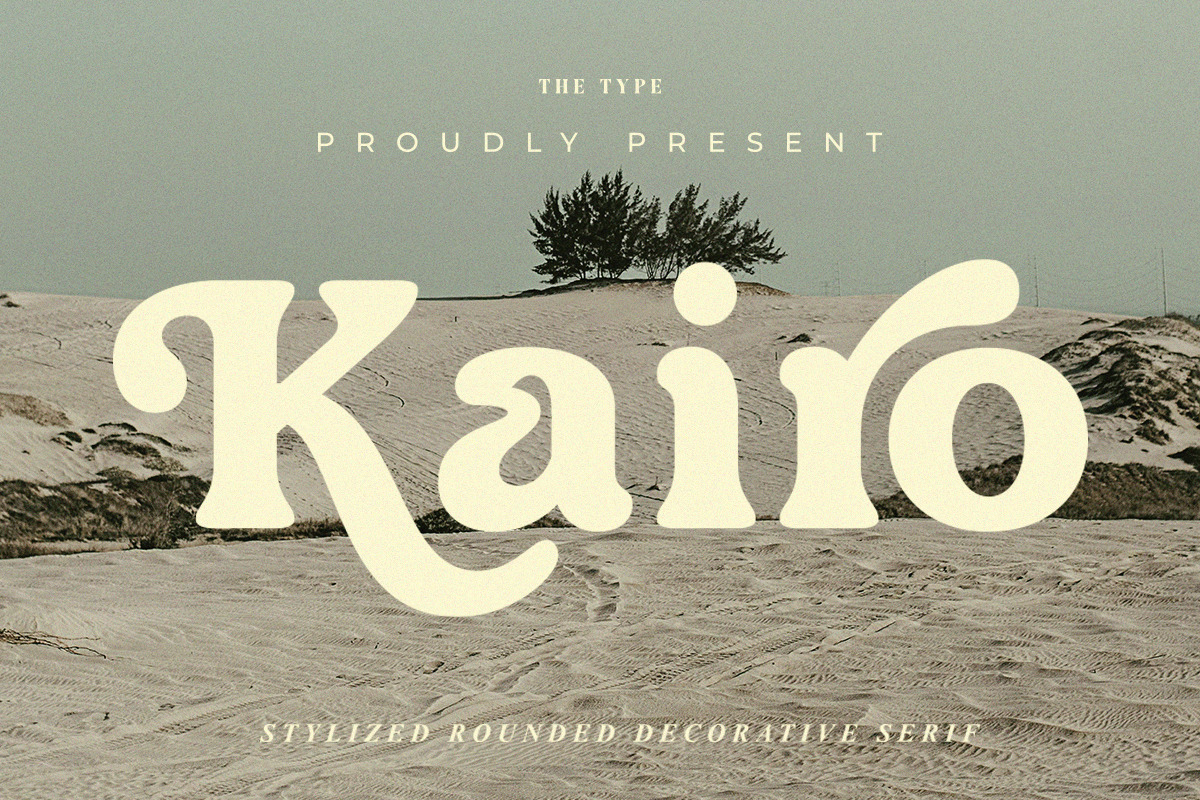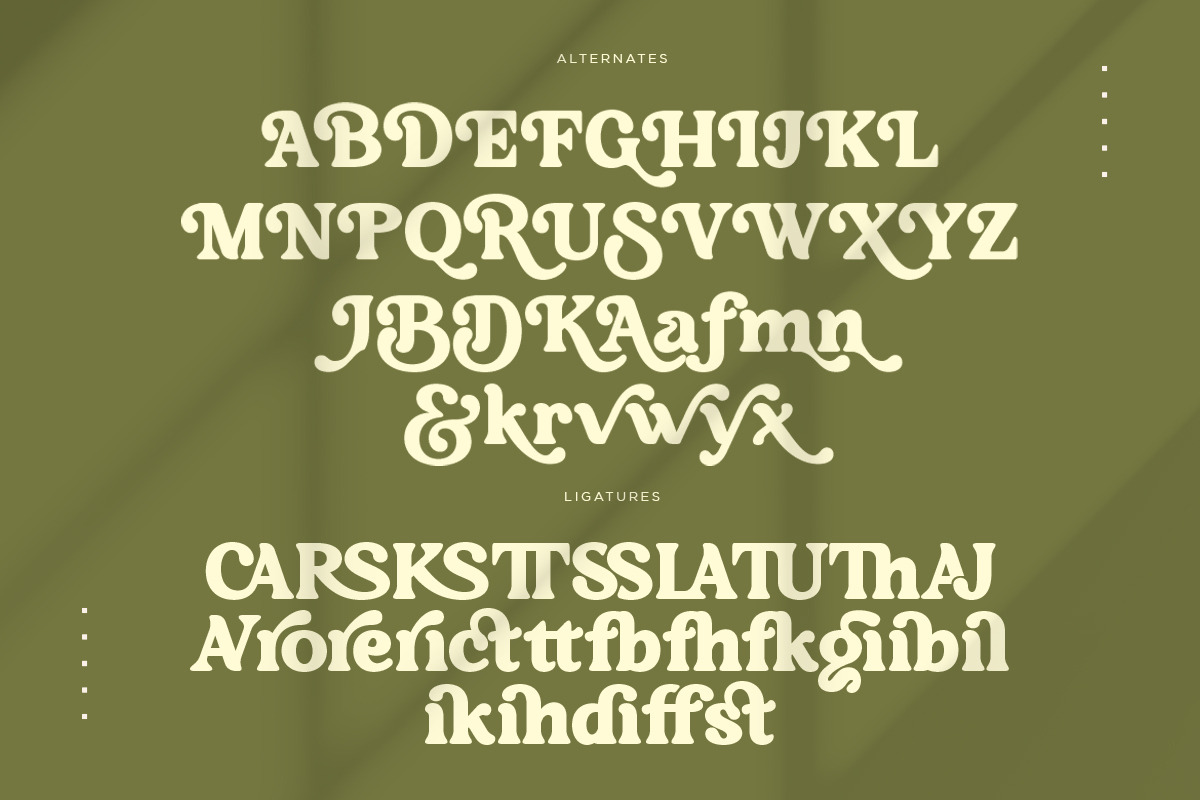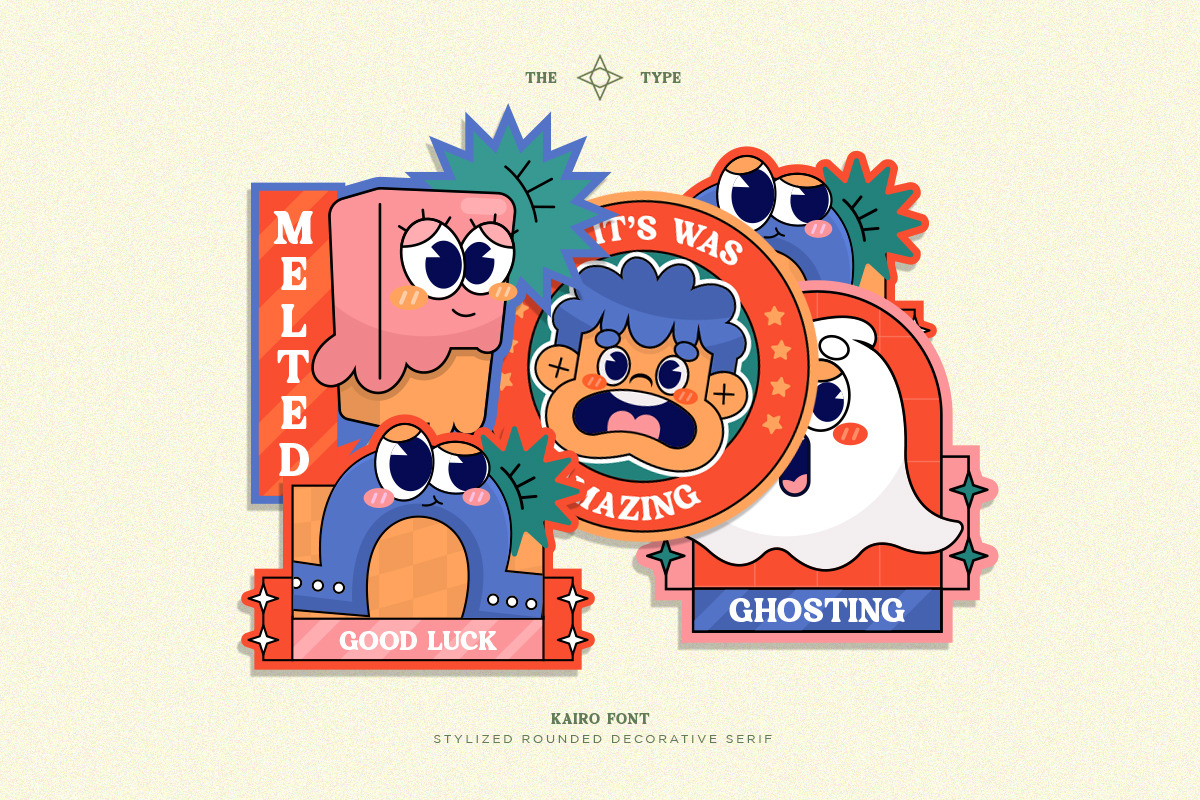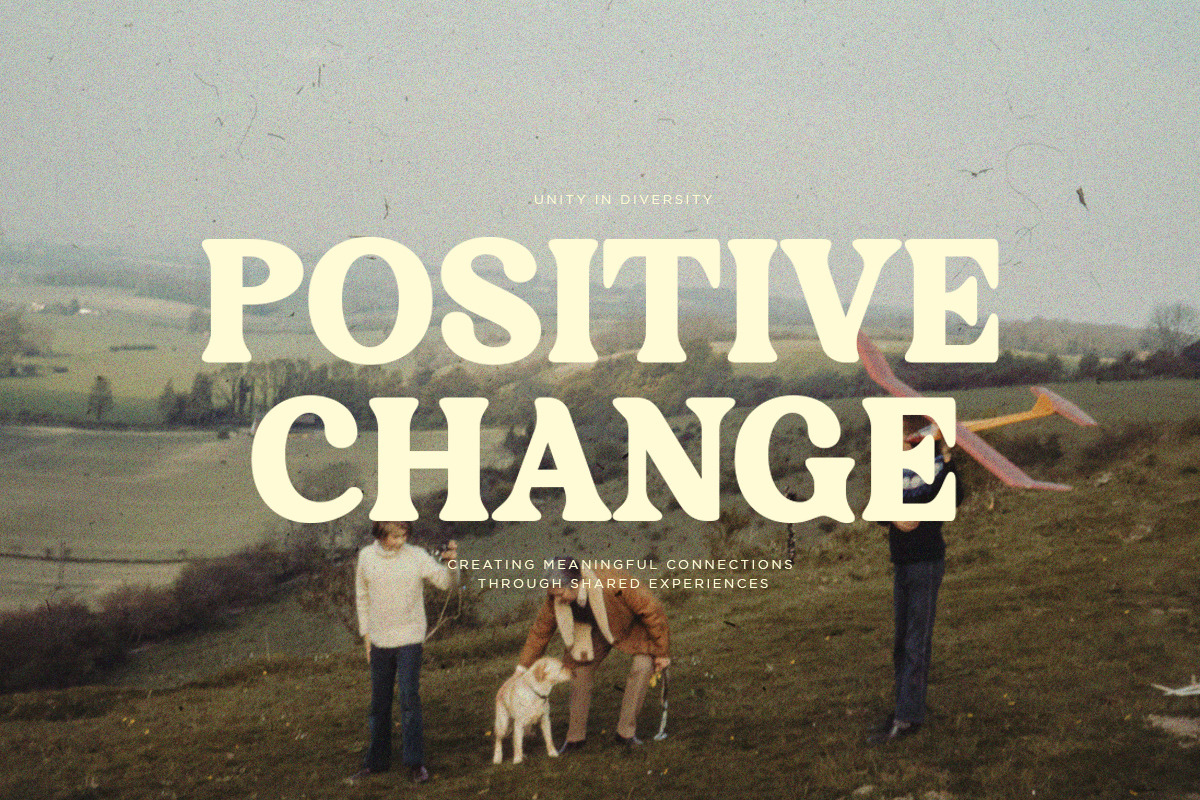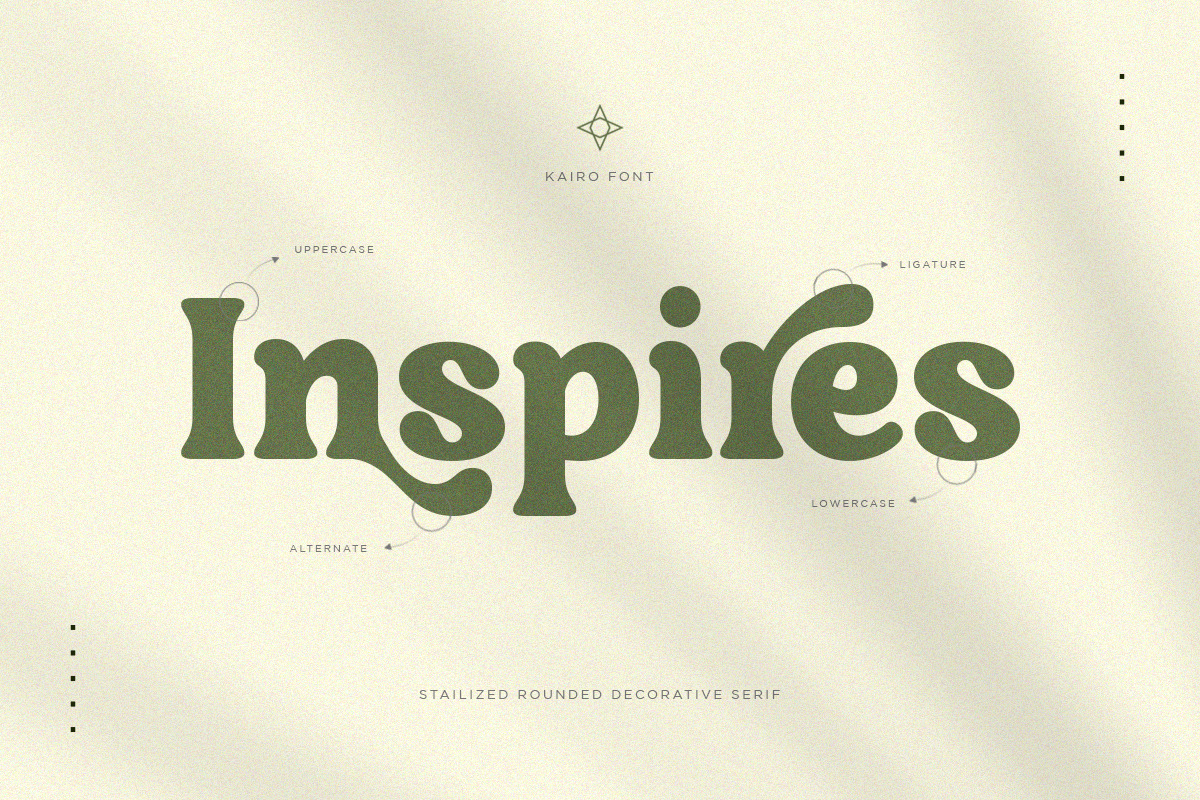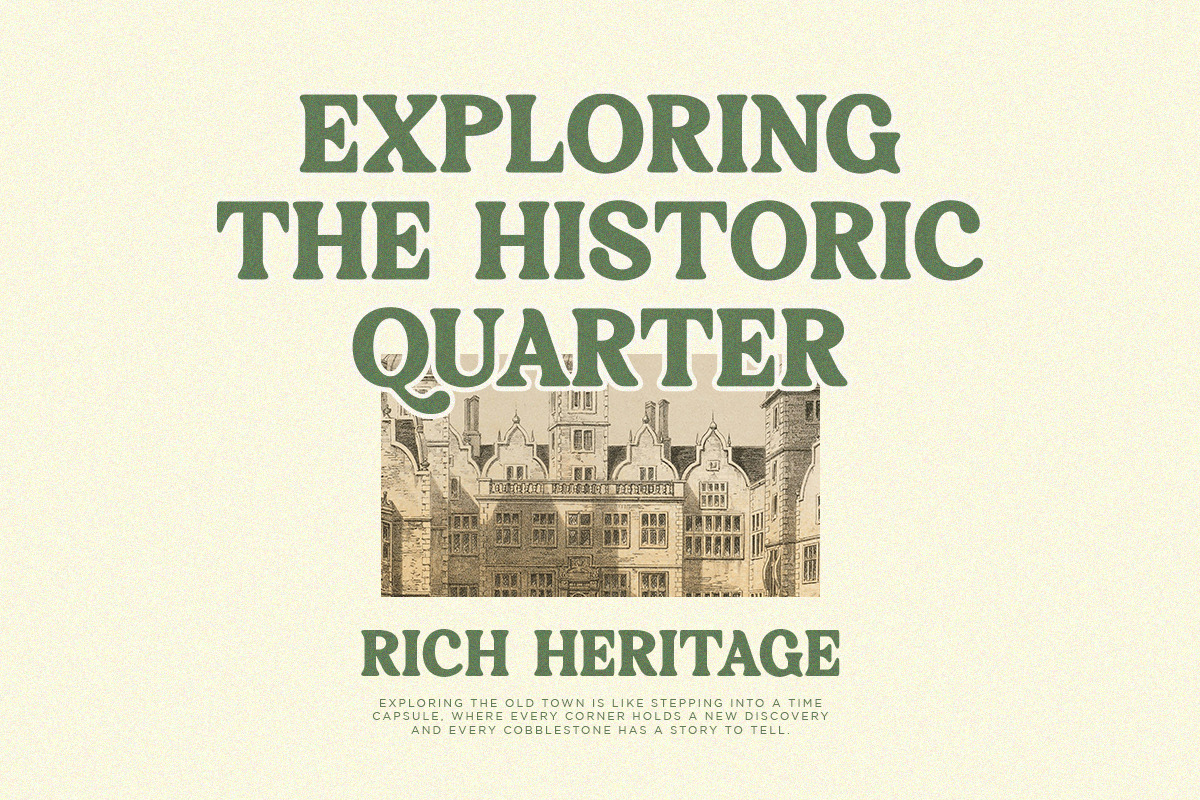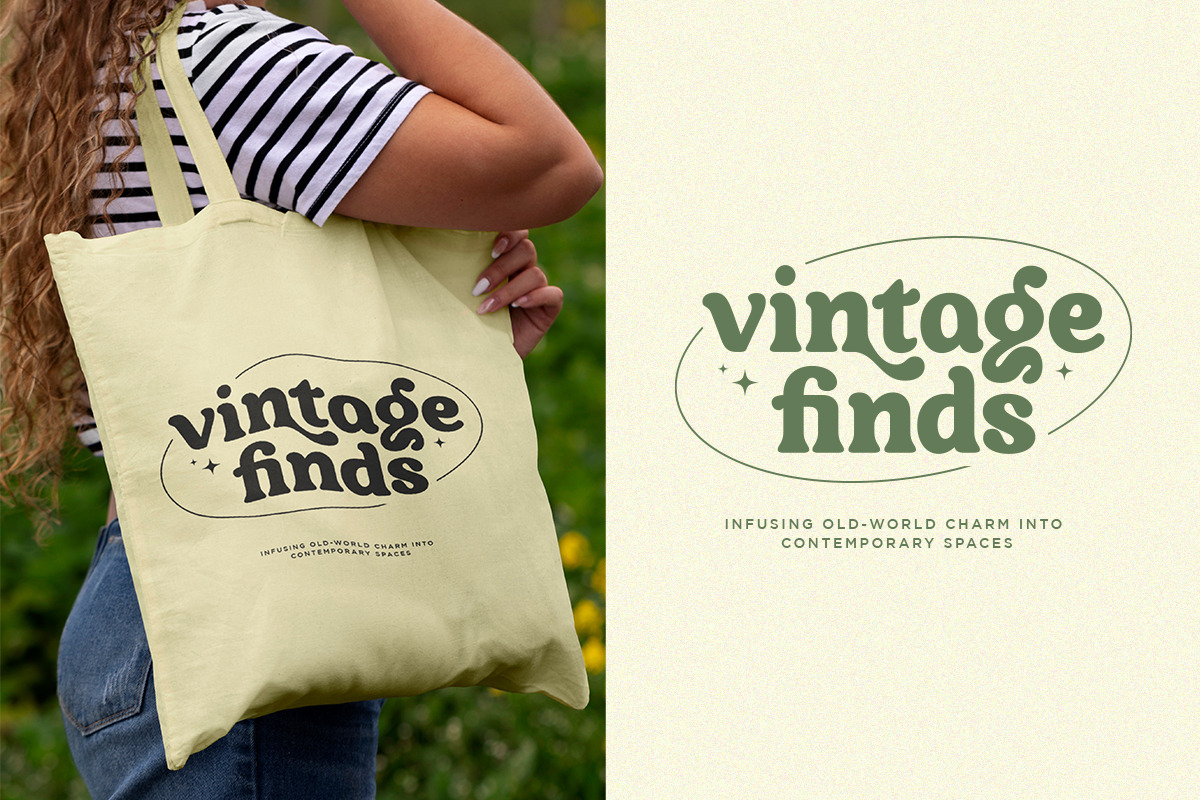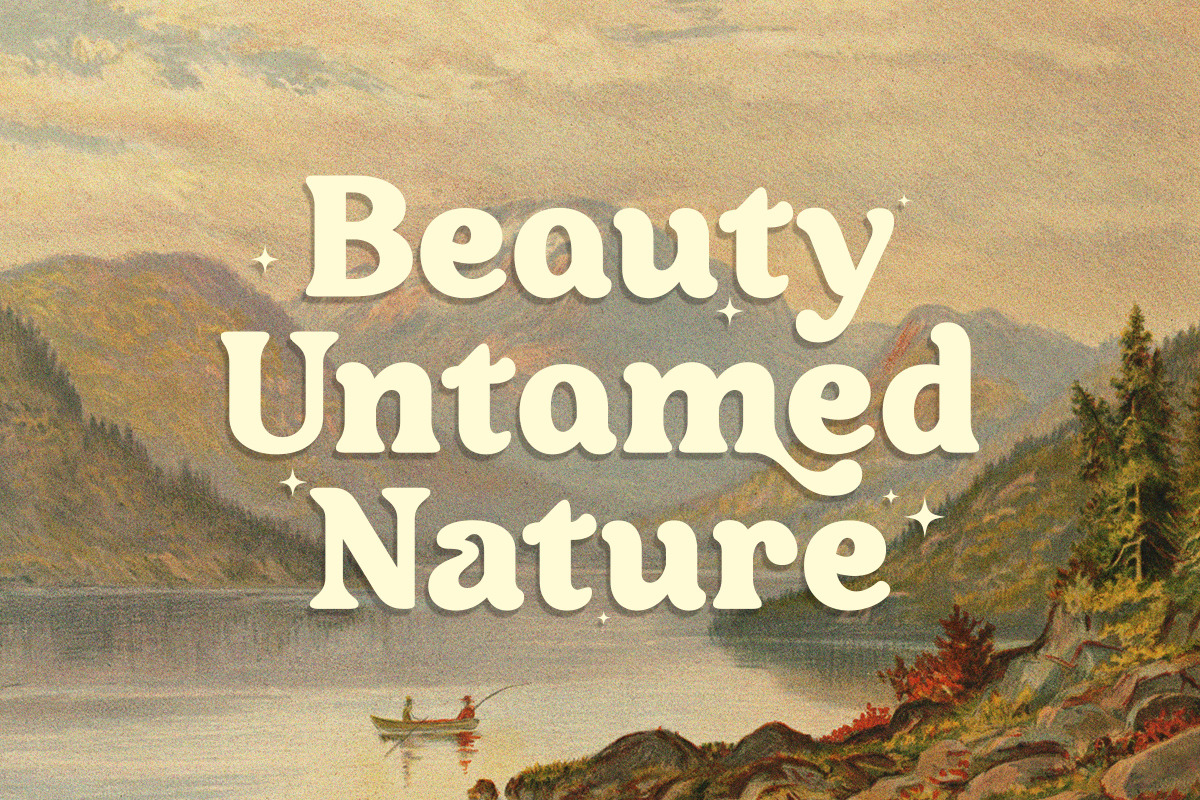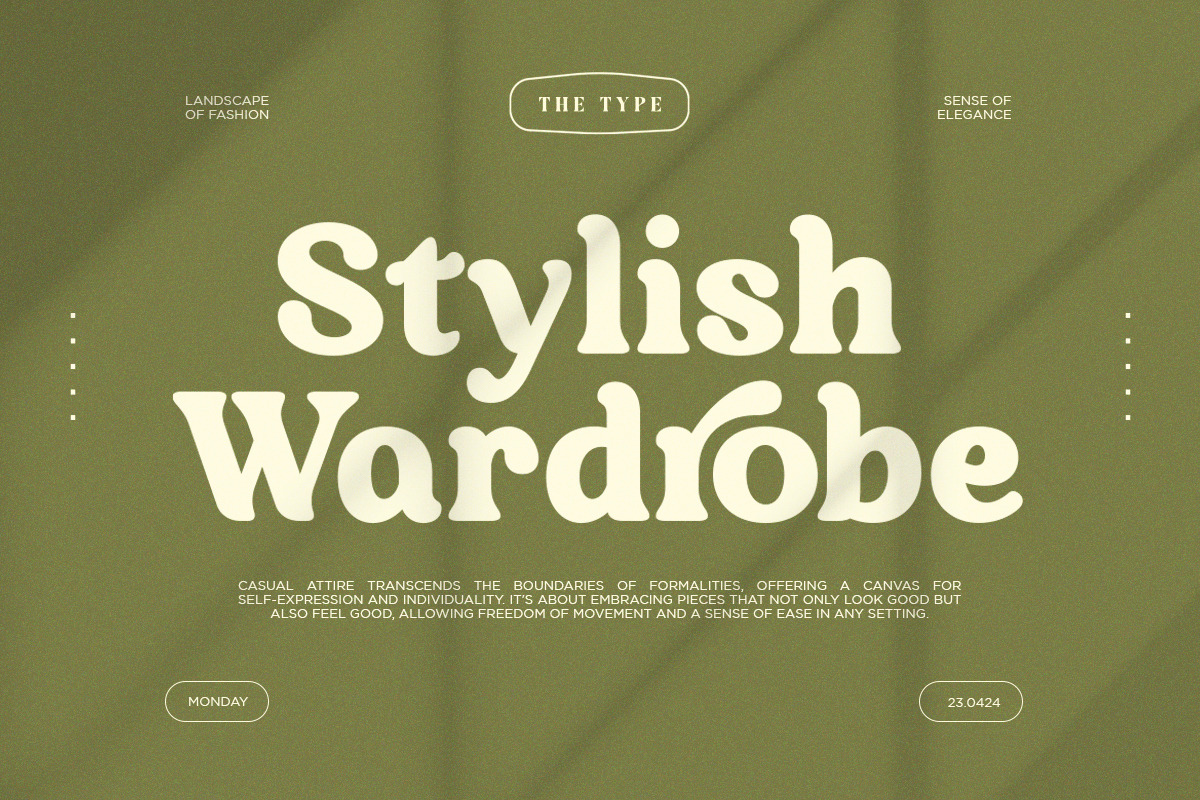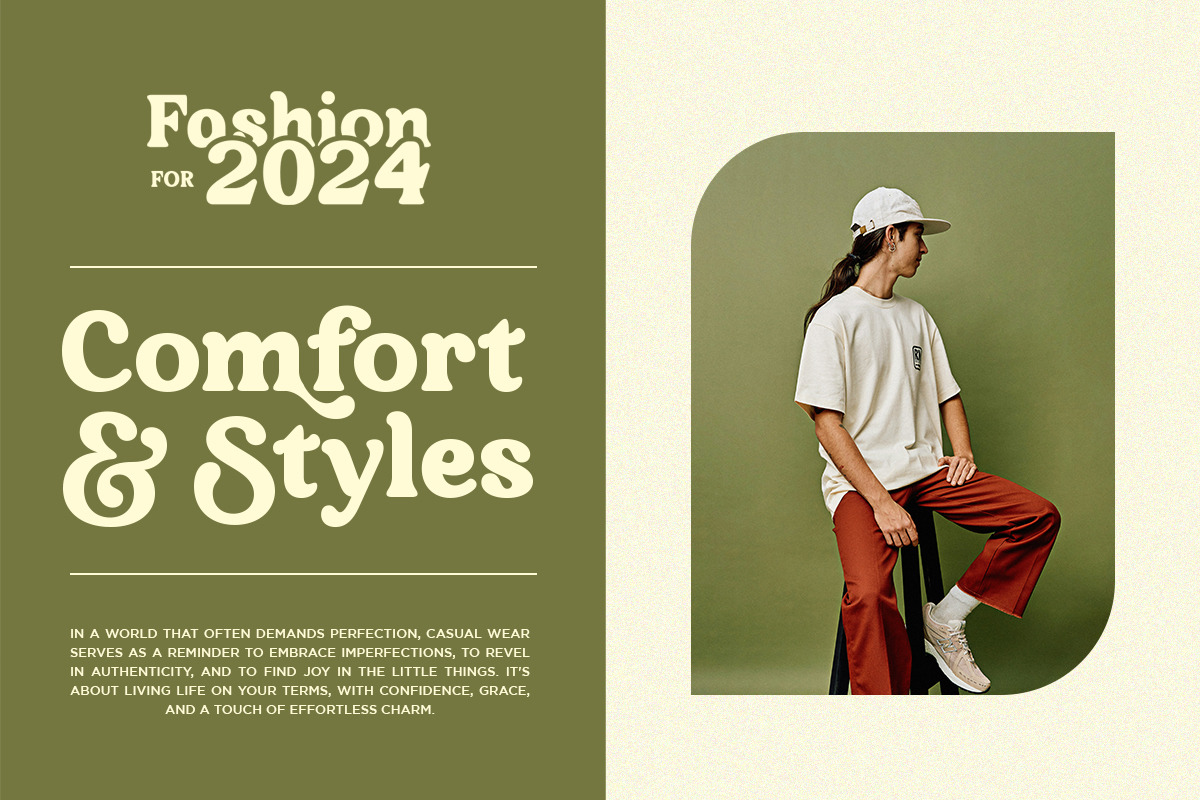
Kairo - Stylized Rounded Font
Kairo - Stylized Rounded Decorative Serif Font. This font can look more classic (conservative) serif, which is perfect for texts. So same he can be more expressive, playing and more modern with alternative substitutes and ligatures, try to play with them and you will get the uniqueness in your project.
Following multilingual support: ÀÁÂÃÄÅĄÇĆÈÉÊËĘÌÍÎÏÐÑŃŁÒÓÔÕÖØÙÚÛÜŚŠŸÝŹŻŽßàáâãäåçèéêëìíîïðñòóôõöøùúûüýÿąćęłńśšźżž